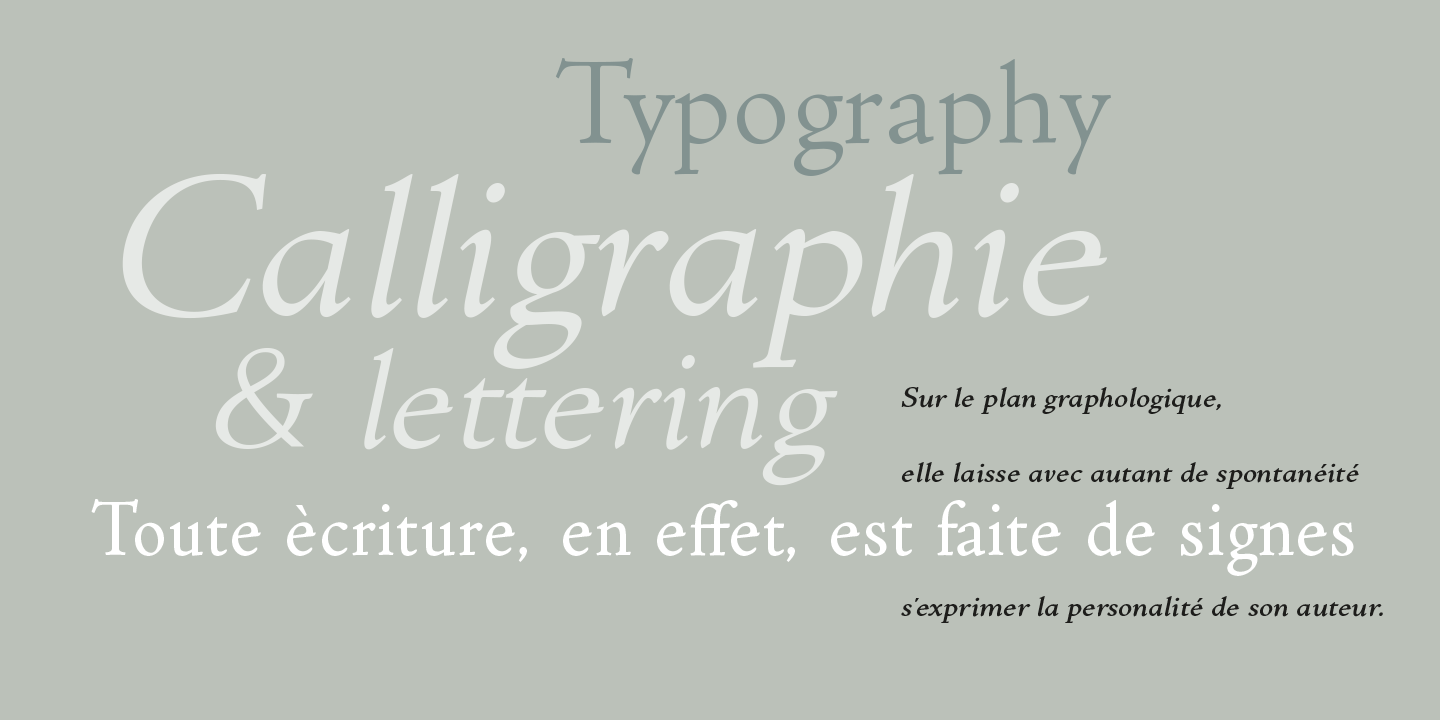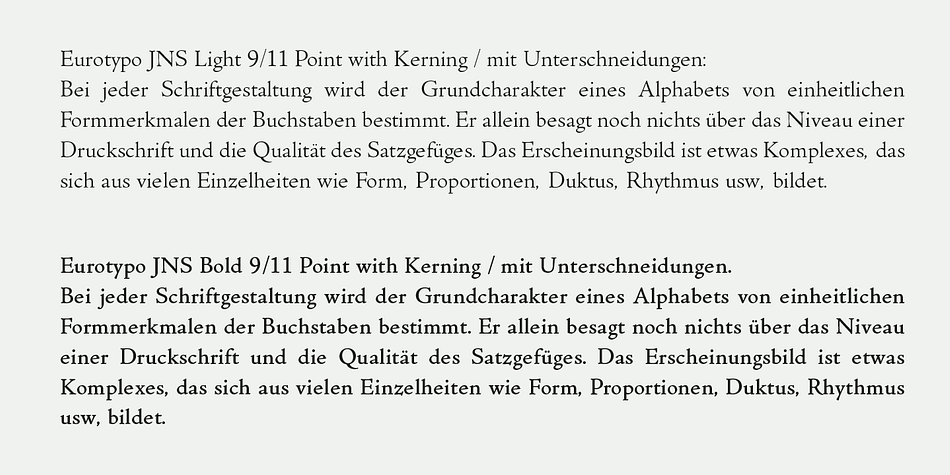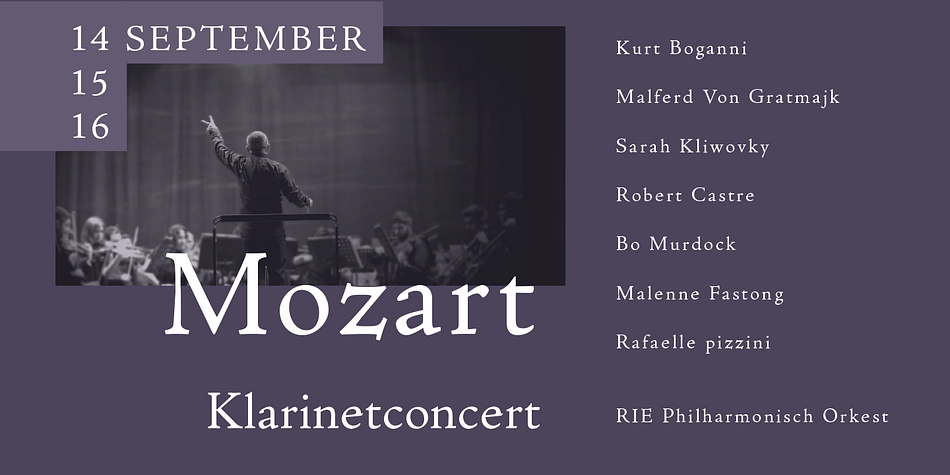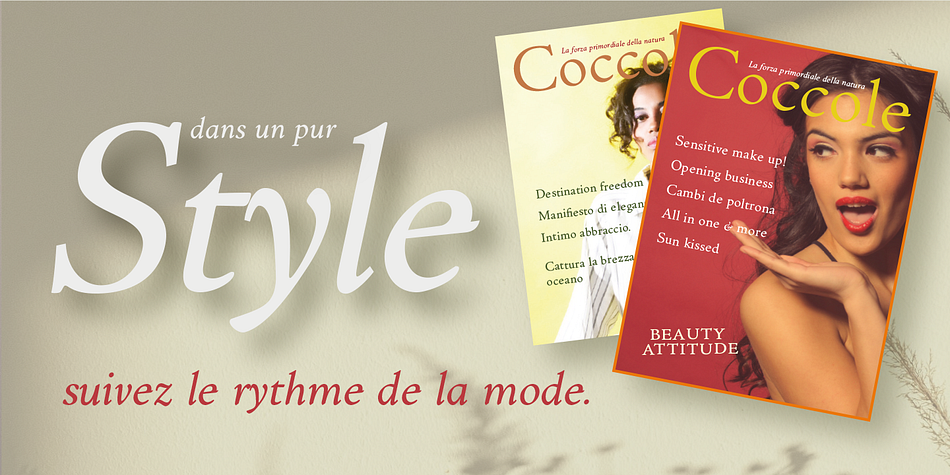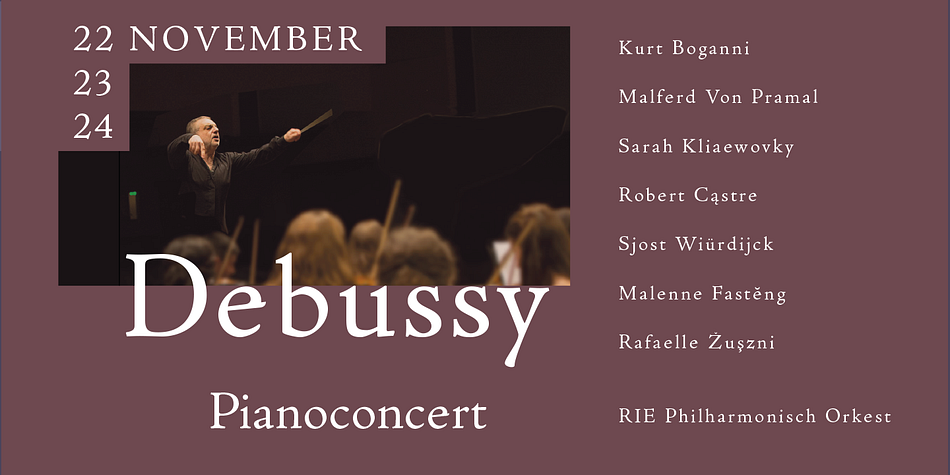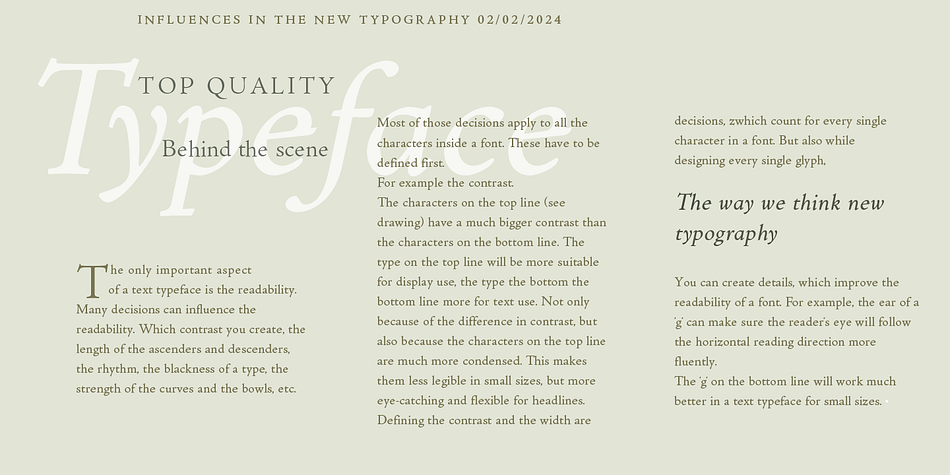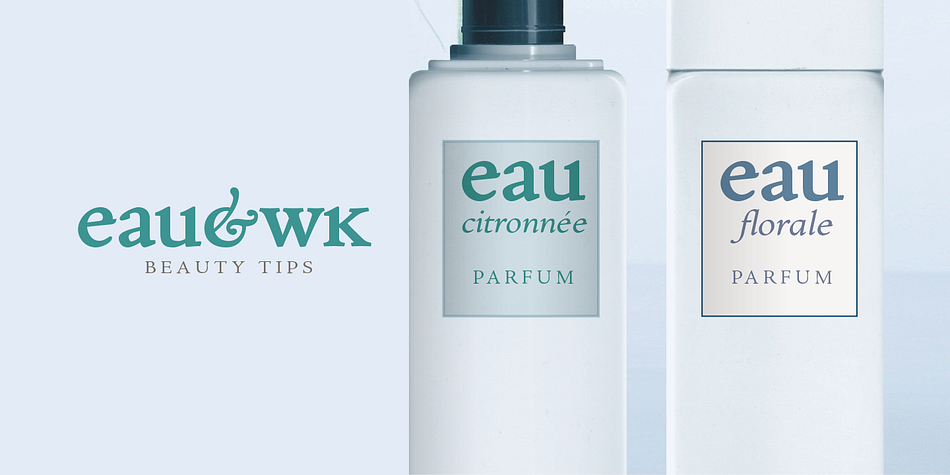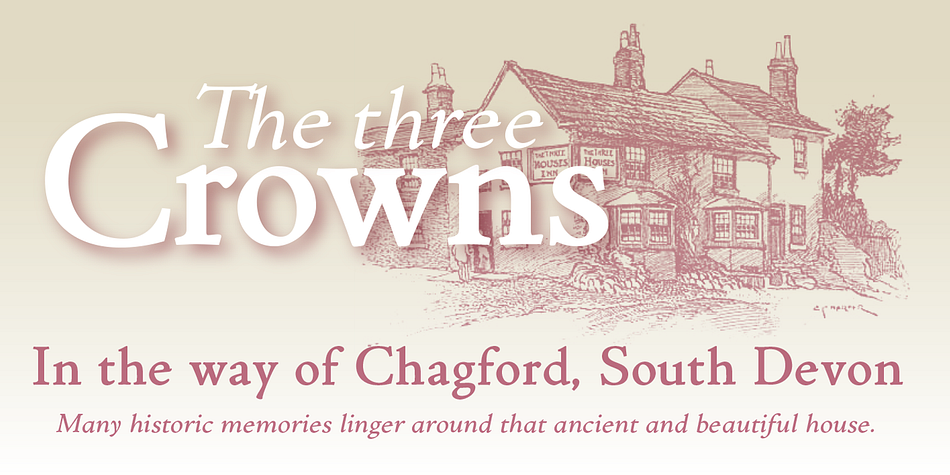
EurotypoJNS
Designed by Olcar Alcaide, EurotypoJNS is a serif font family. This typeface has fourteen styles and was published by Eurotypo.
Nicolaus Jenson, 1470. He was one of the first typographers of the Italian Renaissance established in Venice. His work served as the basis for typographers such as Claude Garamond (1550), William Morris (1890), Bruce Roger (1891) among others.
We wanted to pay our humble tribute to his brilliant work by designing this family of fonts. “EurotypoJNS” comes with six weights and a condensed version, each with its corresponding true italic styles
Designer Olcar Alcaide